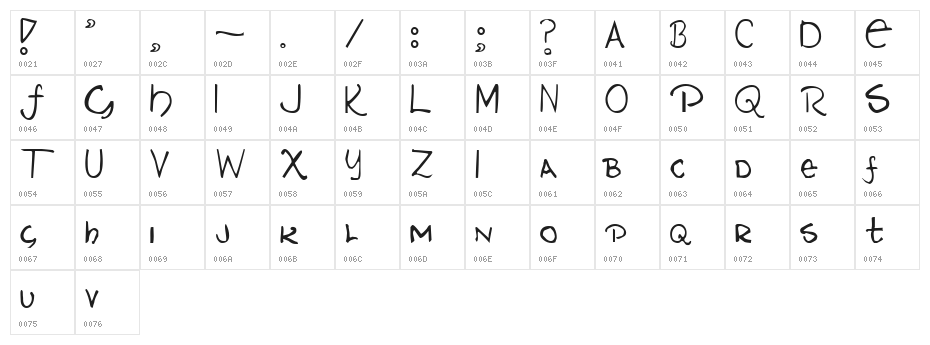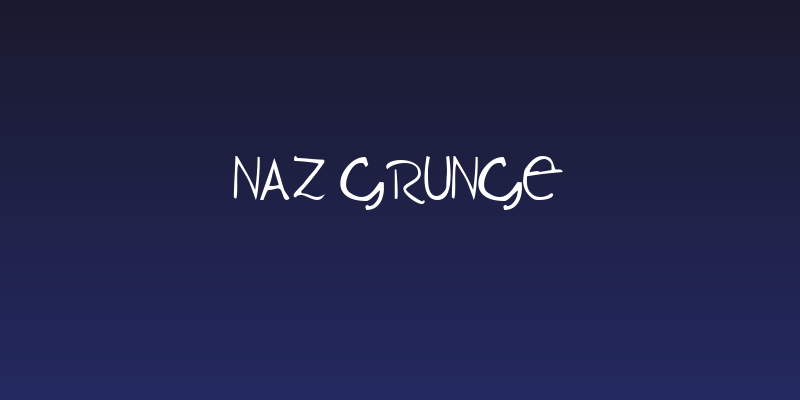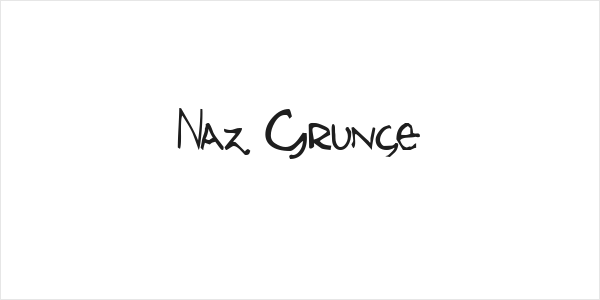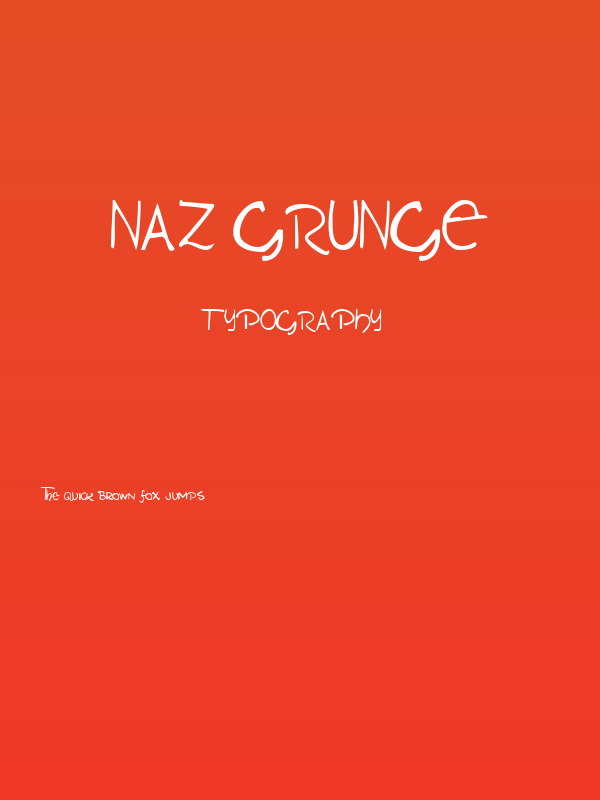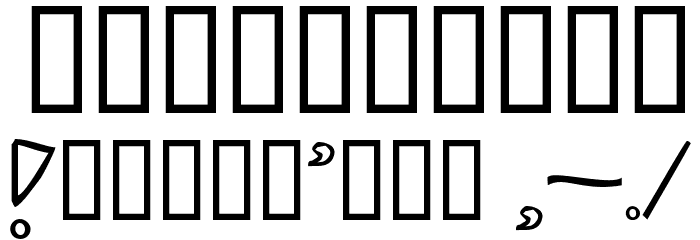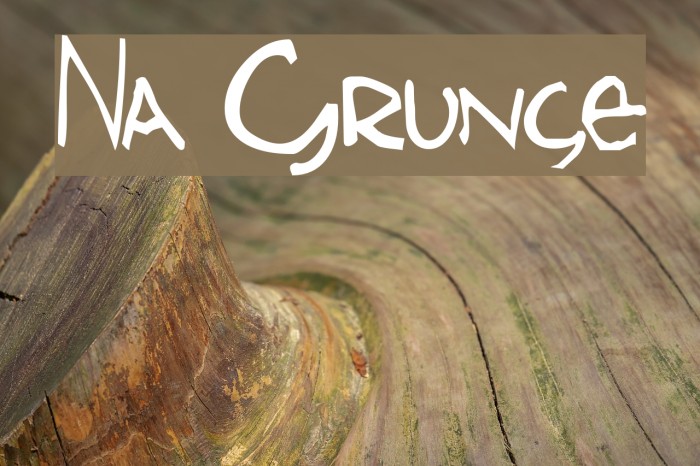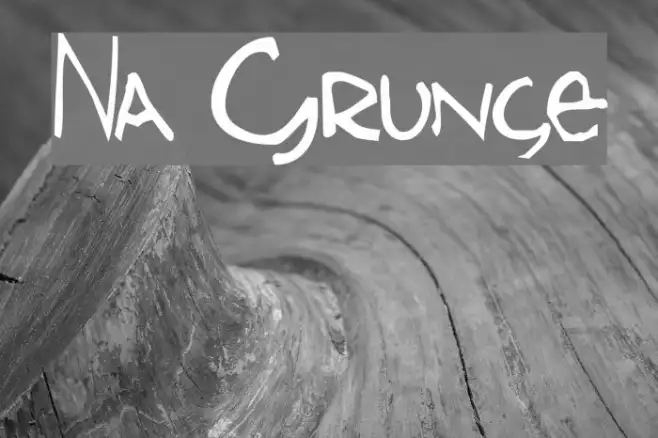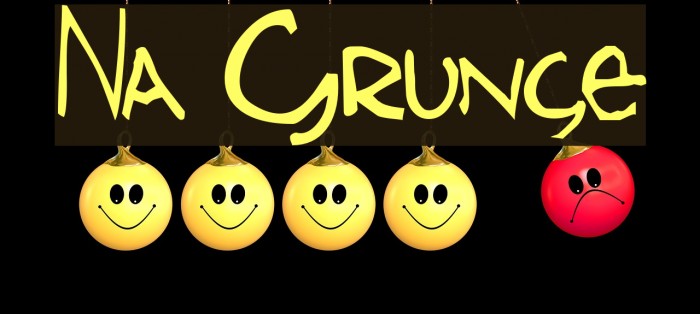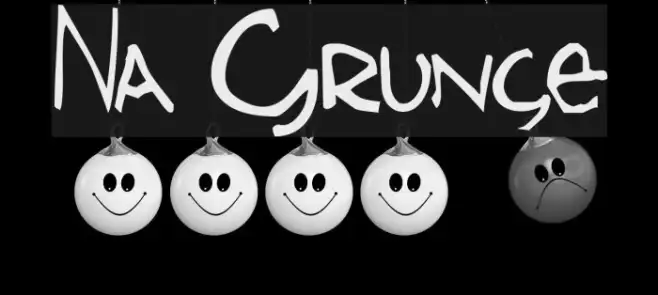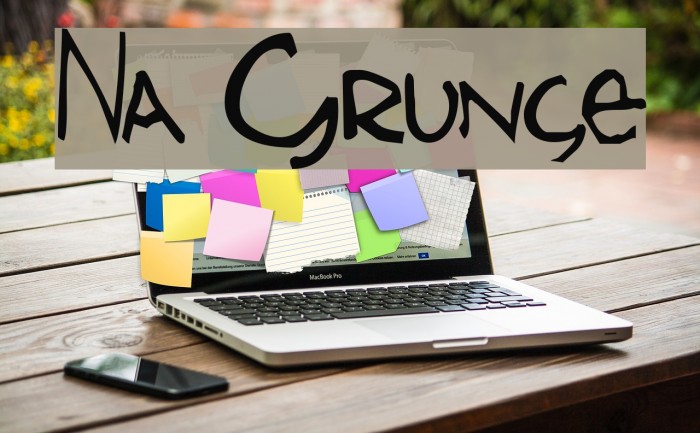
Naz Grunge Font
Naz Grunge Description
This font features a grunge-inspired design with a hand-drawn aesthetic. The characters exhibit an irregular and edgy style, with varying stroke thickness that adds to its raw and artistic feel. The uppercase and lowercase letters maintain a consistent theme, while the numerals and special characters complement the overall look. The font's unique appearance makes it stand out, with a slightly chaotic yet visually appealing structure. Its artistic flair is perfect for projects that aim to convey creativity and individuality.
| Overall Style | Grunge, Artistic |
| Use Case | Headlines, Logos, Artistic projects |
| Proposed Projects | Ideal for album covers, posters, street art, and creative branding projects. |